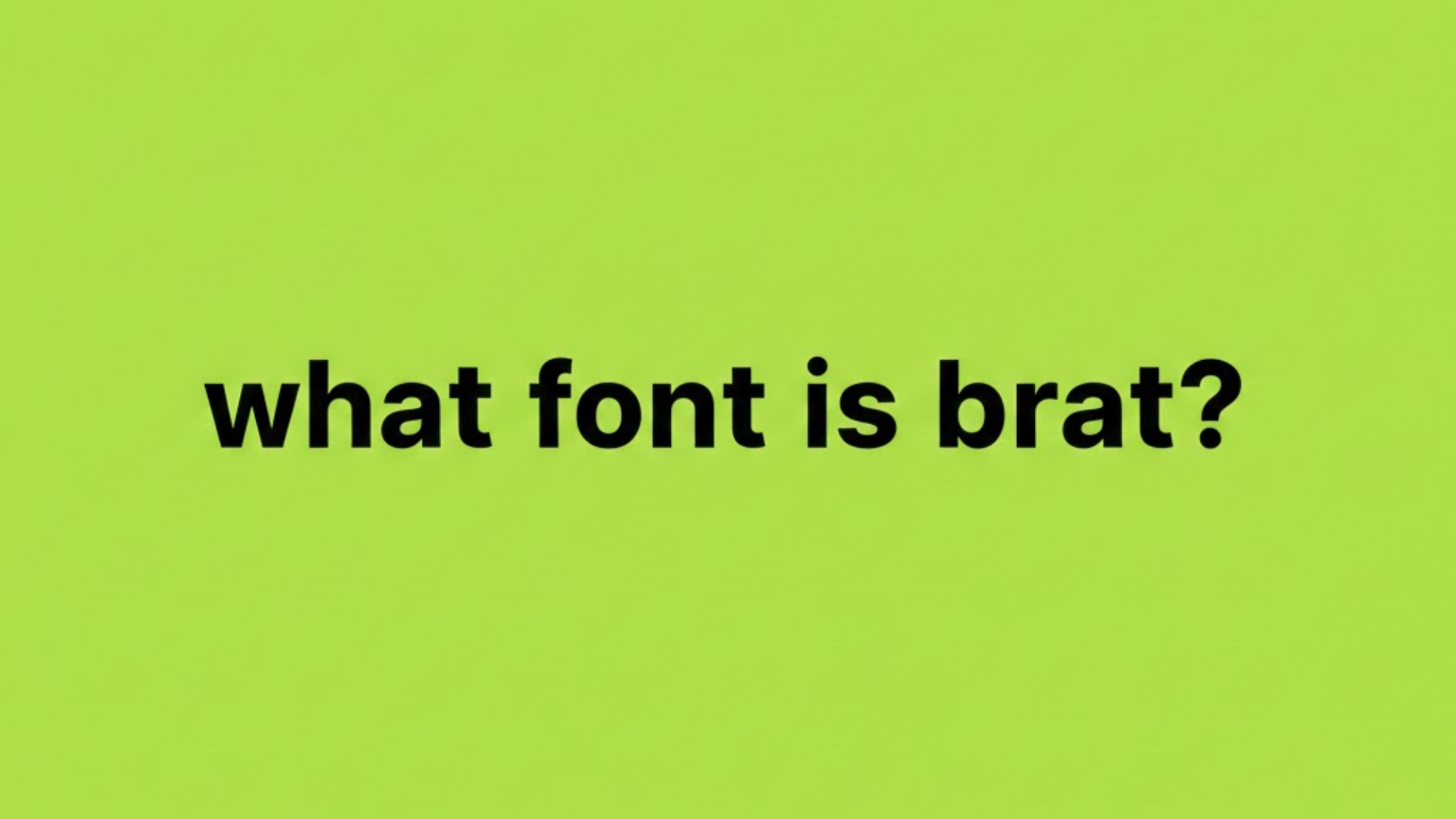
What Font Is Brat? Brat Font Name, Download & Best Alternatives
TikTok, Instagram, and meme culture have been overtaken by the Brat aesthetic, leading many producers to wonder: What typeface is Brat?
This guide discusses the actual name of the Brat typeface, whether it can be downloaded, and the best substitutes available today, whether you’re attempting to replicate the iconic Brat appearance for text, album covers, or memes.
This tutorial provides everything you need, whether you’re a designer or just want to rapidly generate text in the Brat style.
What Is the Brat Font?
The following defines the Brat font style:
- Clean, bold typeface
- Reduced width
- Design that is minimalist
- Strong contrast (often combined with backgrounds of neon green)
- Most text is lowercase.
The Brat typeface feels so contemporary and viral because it is purposefully plain and raw, in contrast to traditional decorative fonts.
What Font Is Used in Brat?
✅ Official Brat Font Name
There isn’t a unique Brat font file.
The main use of the Brat aesthetic is:
Arial Narrow (or regular Arial with scaling and spacing adjustments)
This font selection lets the color and layout do the heavy lifting while keeping the design simple and readable.
Styling and color are more important to the Brat appearance than downloading a unique typeface.
Is There a Brat Font Download?
There is no official download for the Brat font.
Numerous websites advertise that they provide a “Brat font download,” but these are typically:
- Alternative fonts
- Replicas
- Sans-serif fonts that are condensed
You don’t even need to download a font if you want the real Brat appearance.
How to Recreate Brat Font Style (No Download Needed)
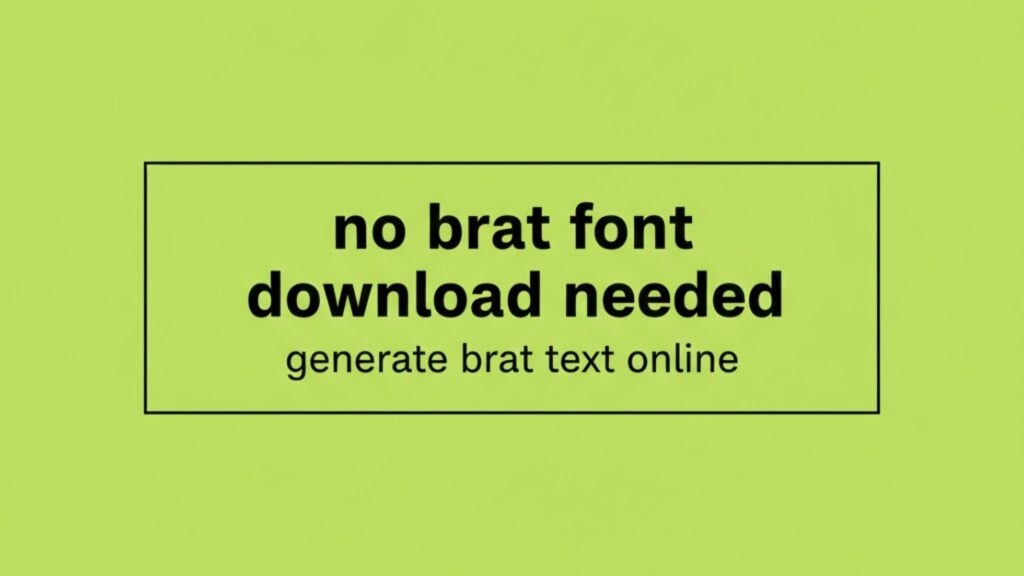
Best Brat Font Alternatives (Free Options)
Selecting the appropriate condensed sans-serif font is crucial when creating Brat-style writing using programs like Photoshop or Canva. Although there isn’t an official Brat font download, there are a number of user-friendly, free substitutes that closely resemble the Brat style.
You can explore many of these options directly from the Google Fonts library, which offers a wide range of free, web-safe fonts suitable for Brat-style designs.
🔹 Arial Narrow
The closest and most popular substitute. It is perfect for replicating the genuine Brat appearance because of its compact breadth and simple construction.
🔹 Helvetica Condensed
Bold Brat-style layouts and album cover designs look great with this polished, minimalist typeface.
🔹 Roboto Condensed
A contemporary, extremely readable typeface that works particularly well in social media and digital creations.
🔹 Inter (Condensed or Scaled)
Inter enables versatility while preserving the simple, minimalist Brat style, making it ideal for both online and mobile use.
Brat Font in Canva (Step-by-Step)
Canva makes it simple to replicate the Brat font style:
- Make use of lowercase text
- Letter spacing should be somewhat increased.
- Use the official Brat green color code with it.
Brat Font for TikTok & Instagram
The Brat font is most effective on social media when:
- The text is bold and brief.
- The font is kept basic.
- The background is highly contrasted.
- The lowercase style is kept.
To increase exposure and interaction, creators frequently pair the Brat font with neon green backgrounds.
Why the Brat Font Looks So Good
The reason the Brat style is successful is since it
- rejects intricate typography
- seems genuine and purposeful.
- corresponds with contemporary online culture
- puts the message ahead of the adornment
Because of its simplicity, the Brat typeface trend continues to gain popularity.
Frequently Asked Questions (FAQ)
What font is used in Brat?
Brat uses Arial Narrow or standard Arial, styled to appear condensed and minimalist.
Final Thoughts
The Brat font is about bold color combination, clear typography, and spacing rather than downloading a unique file.